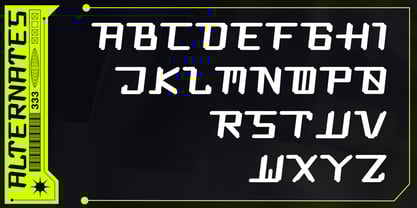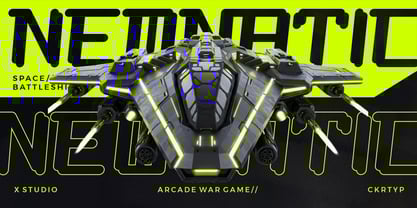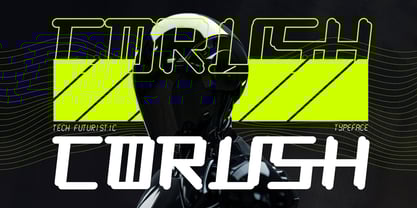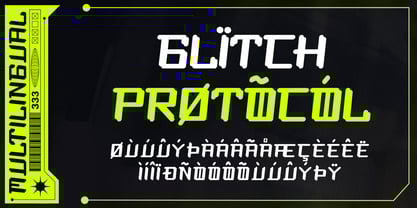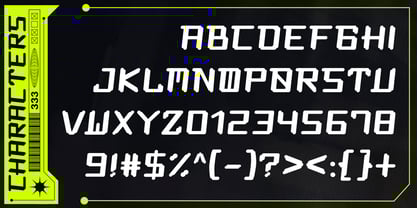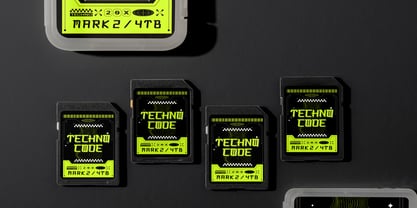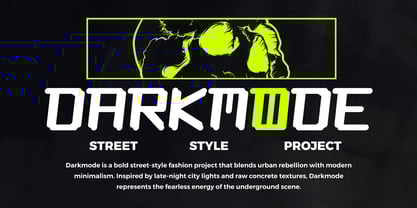
Corush
by Sipanji21
The Corush Font Family was designed by Sipanji and published by Sipanji21. Corush contains 1 styles.
Corush is a modern tech futuristic typeface built for designers who dare to think ahead. Inspired by the world of cyberpunk, robotics, and advanced digital technology, it delivers a clean, geometric, and high-tech aesthetic that instantly transforms any design into something bold and visionary. Each letter in Corush is crafted with precision. Its structured geometry and smooth terminals create the perfect balance between machine-like discipline and human creativity. With a visual rhythm that feels sleek and intelligent, Corush gives off the atmosphere of innovation, motion, and energy — ideal for forward-thinking brands and futuristic environments. The font’s proportions are optimized for both digital and print use, offering powerful readability without sacrificing style. Its sharp yet rounded design language makes it perfect for titles, logos, user interfaces, packaging, and esports branding. Corush features Uppercase, Numbers, and Punctuation, along with Multilingual Support for global usability. It also includes Stylistic Alternates that let you explore unique variations and futuristic shapes for truly custom lettering. Why Designers Choose Corush Distinctive futuristic tech appearance Balanced geometric structure with soft terminals Great legibility for display and screen Perfect for modern digital projects and branding Designed for motion, rhythm, and innovation Use Cases Futuristic logos and startup branding Sci-fi posters and film titles Esports and gaming interfaces Tech packaging and web design Cyberpunk or digital art concepts Corush is not just a font — it’s a design system that reflects the spirit of tomorrow. Its refined structure and digital essence make it timeless and adaptable to a wide range of visual identities.